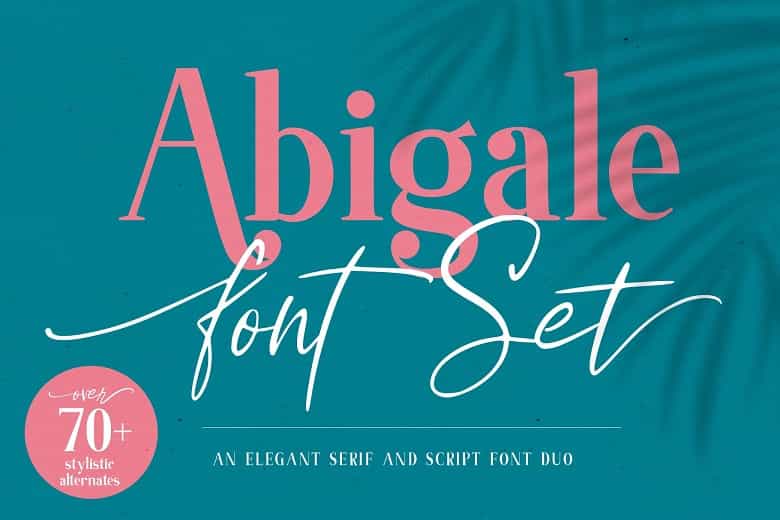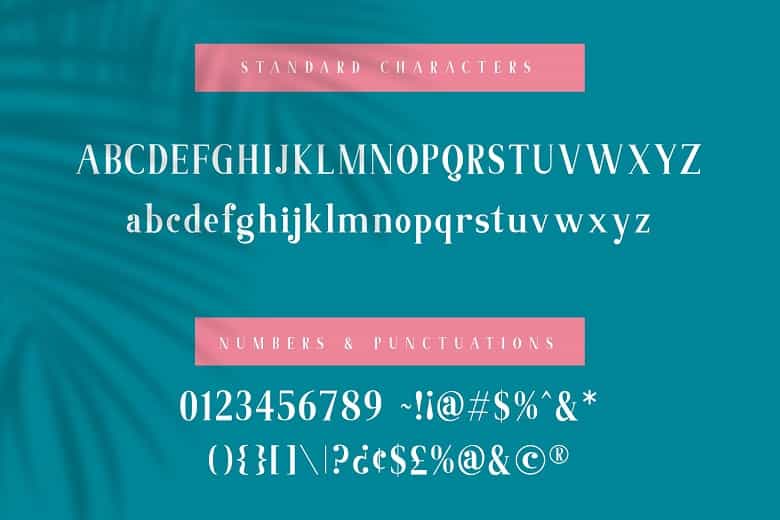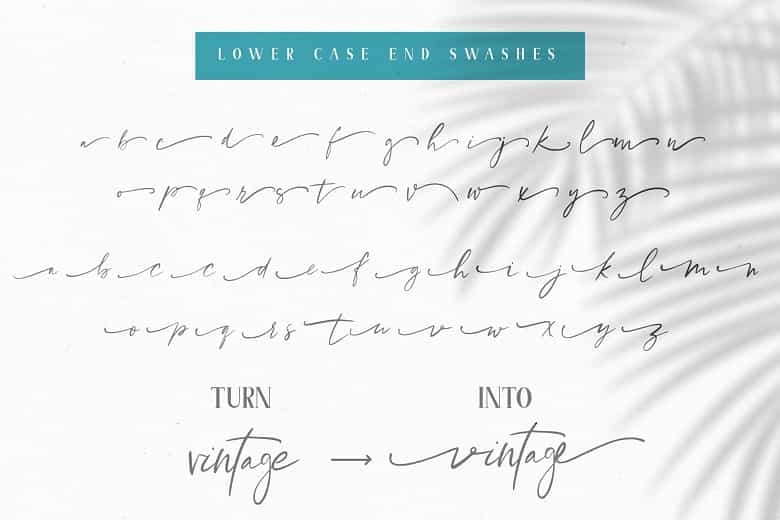
Discover Abigale Font Duo, part of the Handwritten Serif collection—a versatile and unique font perfect for adding a personal touch to your projects. Download it for free and enjoy crafting designs with style, from invitations to social media posts. This font is available exclusively for personal use, giving you the freedom to create without limits. Unlock your creativity with Abigale Font Duo today!
Abigale is a new modern serif and script font duo with elegant looks. That is why I decided to design a font set that would be neutral, but at the same time, would have some elements of modern design. A product that one can use for any celebration whether it is Christmas, Halloween, Easter or any other celebration, wedding, birthday, graduation, etc.